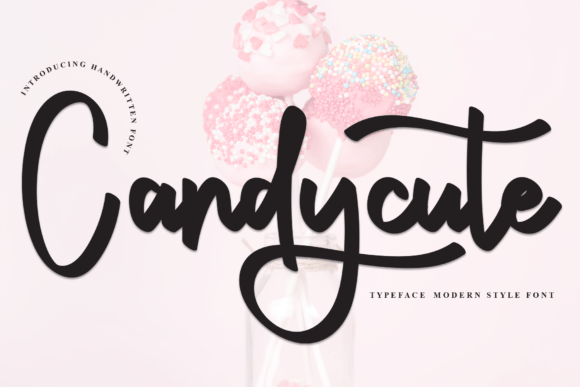
The Sweet Spot: Discovering the Charm of Candycute Font
I’ll never forget the time I was working on a project for a client’s children’s brand. I had a clear vision of what I wanted to create, but there was one major roadblock: finding the perfect font. The design needed to be playful, friendly, and engaging, but everything I tried seemed either too generic or too over-the-top. That’s when I stumbled upon Candycute Font, and it was love at first sight! 💕
A Personal Review: What I Love About Candycute
Candycute Font has quickly become one of my go-to fonts for a variety of design projects. Here’s what I love about it:
• ✨ Sweet and Friendly Aesthetic: Candycute has a natural, handwritten feel that’s both inviting and charming.
• ✅ Versatility: Its unique style makes it incredibly fitting for a wide range of designs, from kids’ projects to more sophisticated branding.
• 💡 Creativity Unleashed: The only limit is your imagination! Candycute inspires creativity and experimentation.
While Candycute Font is amazing, it’s not without its quirks:
• 🤔 Kerning Issues: Like many handwritten fonts, kerning can be a bit tricky. Some letters might need manual adjustment for optimal spacing.
• ⚠️ Legibility at Small Sizes: While generally legible, Candycute can get a bit fuzzy at very small sizes. It’s best used at larger sizes for maximum impact.
Candycute Font supports OpenType features, which can add an extra layer of creativity to your designs:
• Stylistic Alternates: Swap out letters for stylistic variations to add uniqueness to your text.
• Glyphs: Access special characters and symbols to embellish your design.
The Story Behind Candycute Font
Candycute Font was designed with the intention of creating a sweet and friendly aesthetic. The designer aimed to craft a font that felt approachable and charming, perfect for projects that needed a touch of whimsy. While the exact backstory might be fictional, the impact of Candycute is very real.
Is Candycute Font suitable for professional branding? Absolutely! Candycute’s unique style can add a touch of personality to professional branding, especially for businesses targeting a younger audience or those in creative industries.
Does Candycute support OpenType features? Yes, Candycute Font supports OpenType features, including stylistic alternates and glyphs, which can enhance your design work.
Can I use Candycute Font in both digital and print projects? Yes, Candycute Font is versatile and can be used in both digital and print projects. Its clarity and readability make it suitable for a wide range of applications.